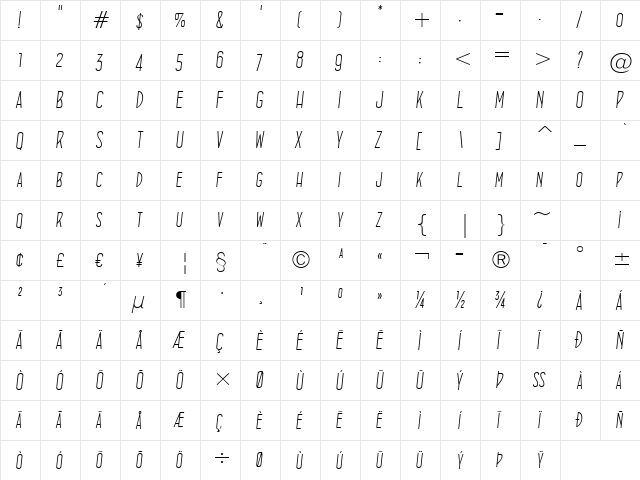
ConcursoItalian BTN Lt Oblique Font Preview
Design Context for ConcursoItalian BTN Lt Typeface
ConcursoItalian BTN Lt takes a measured approach to typography — its balanced proportions and neutral character make it a reliable workhorse for both digital and print work. The slanted form adds forward momentum and visual energy. Its slender proportions lend an understated elegance to any composition.